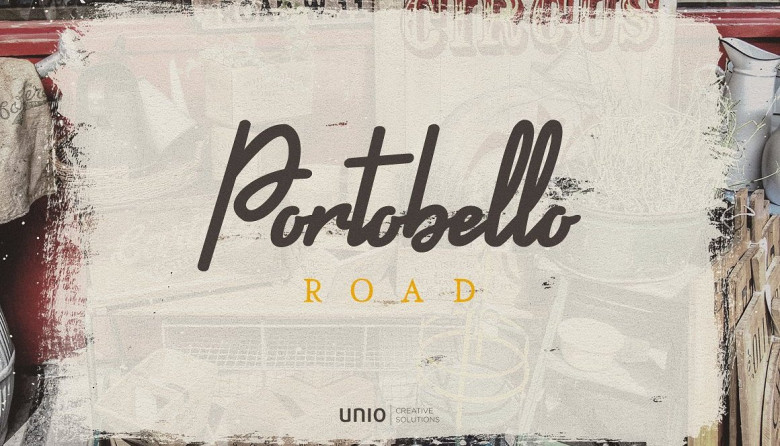
Portobello Road Font Family
Hello friend, let me introduce product Portobello Road ! It is was designed and shares by Unio | Creative Solutions. “Portobello Road – Font Trio” depicts a more sophisticated approach where a stylish & modern handwritten script is companioned by a classic serif typeface. This font trio offers in fact a beautiful diversity with a tall serif font and a free-flowing expressive condensed script. A versatile font set which covers several languages based on the Latin alphabet, the whole font design is completed with an extensive accents and diacritics set.